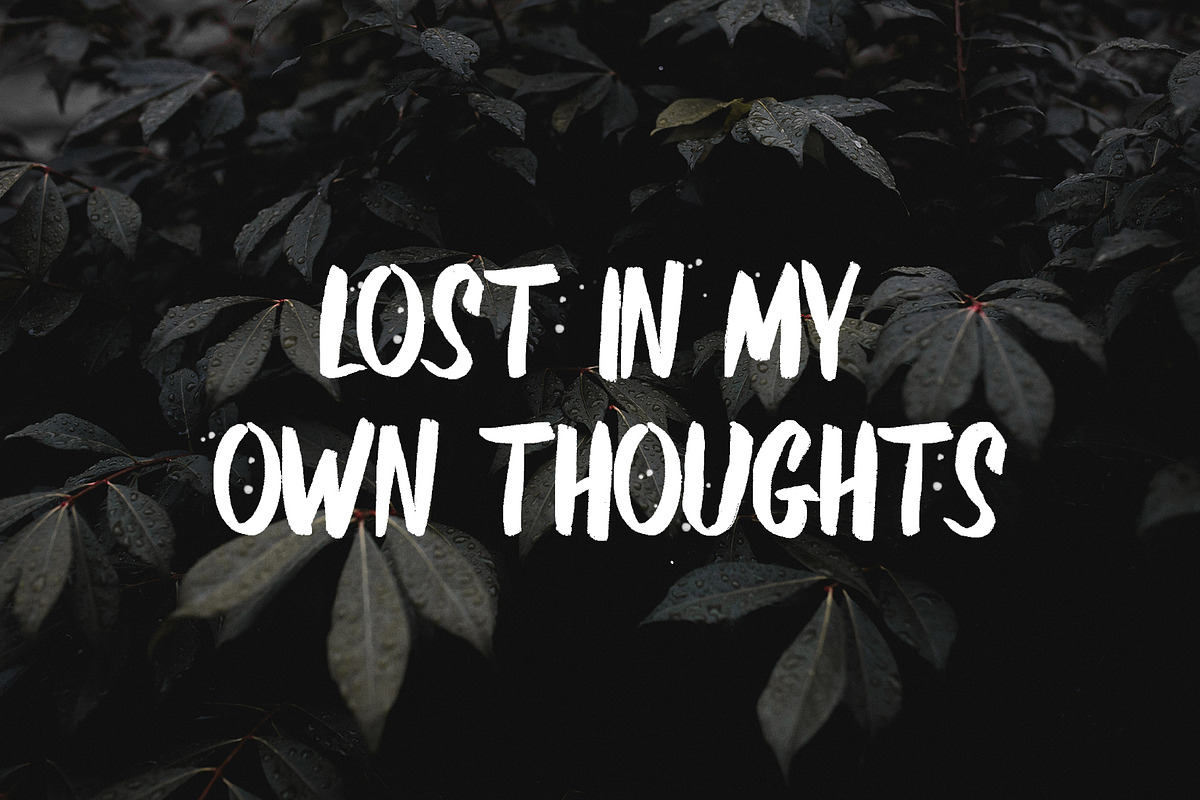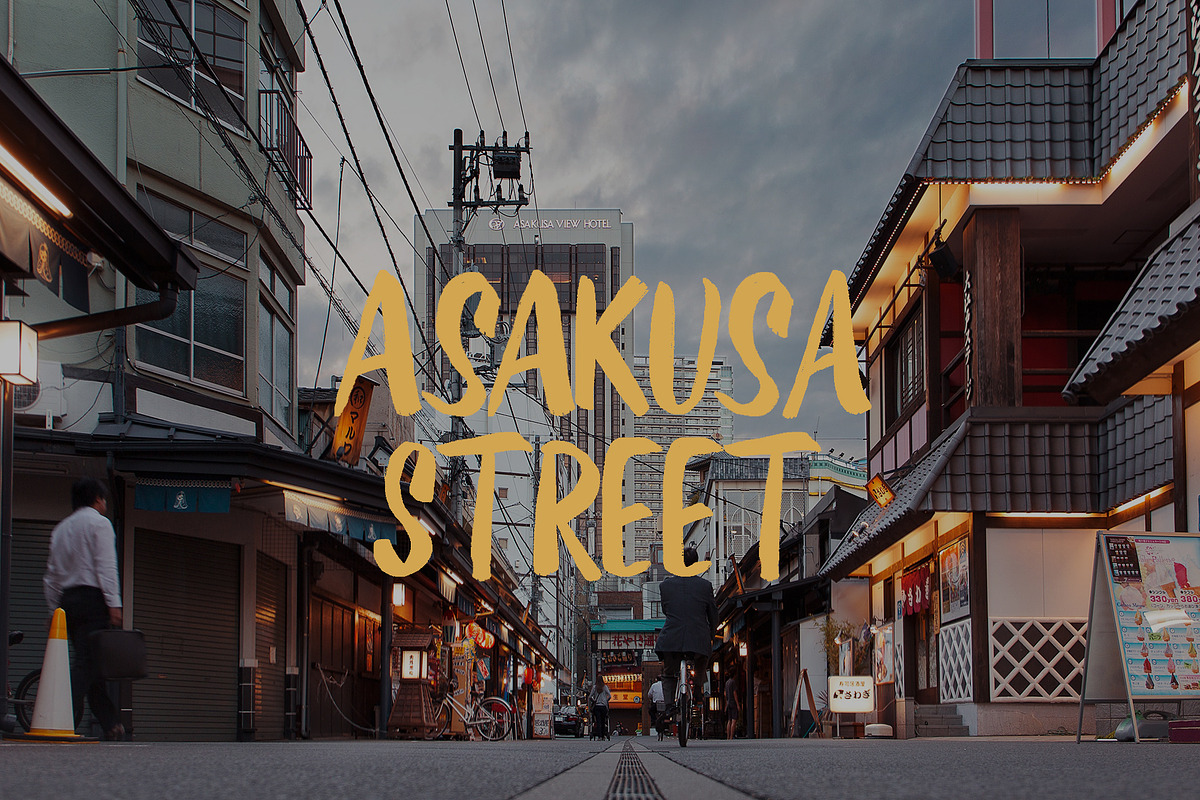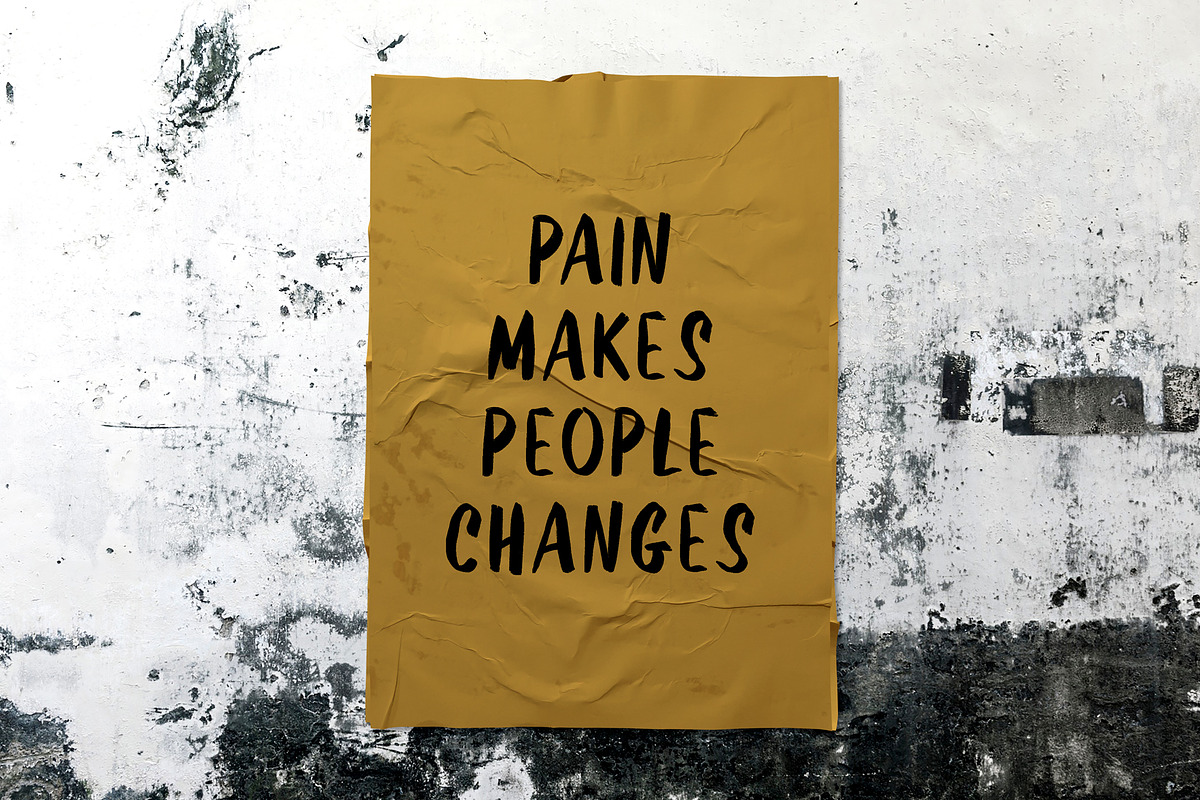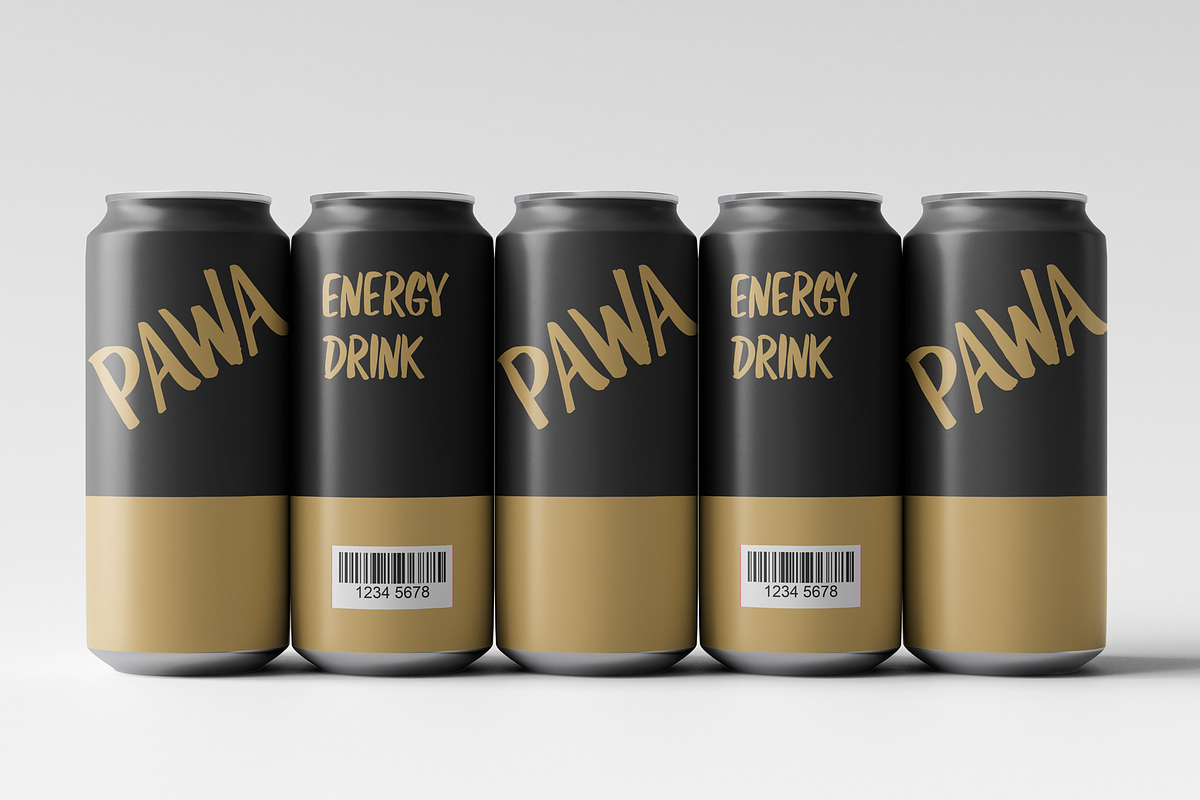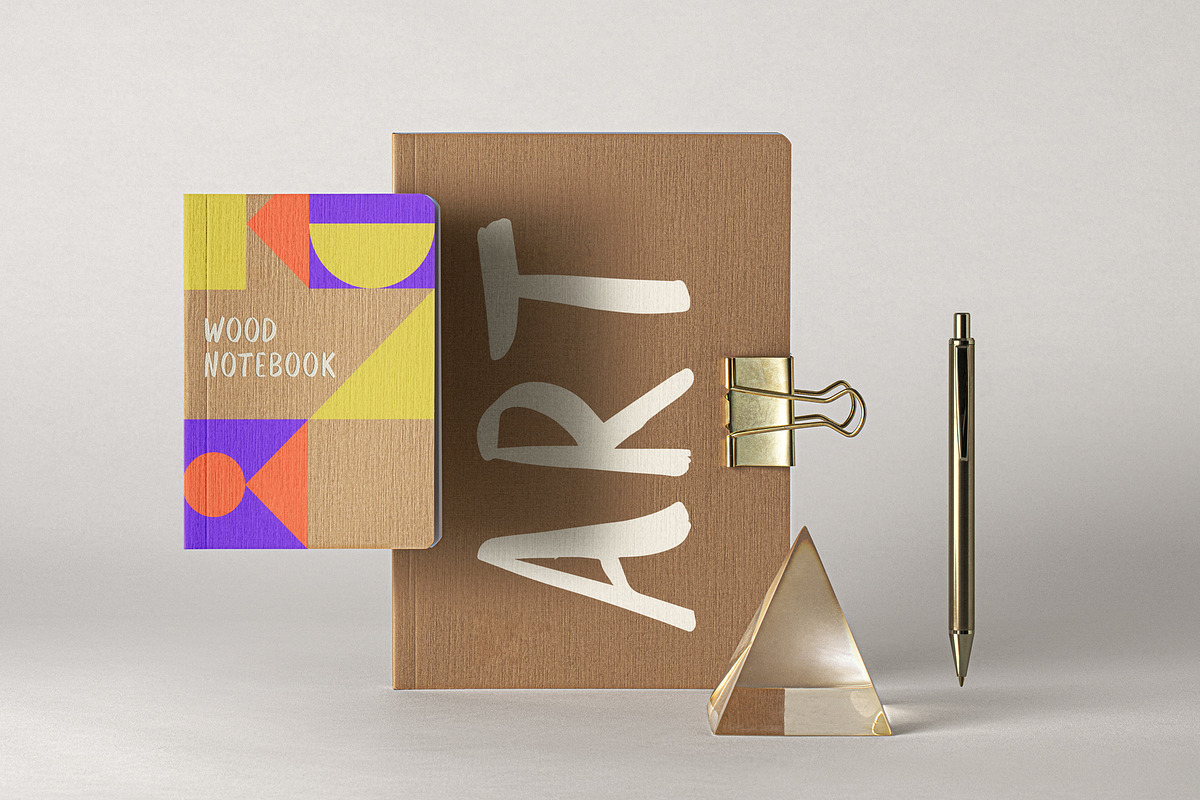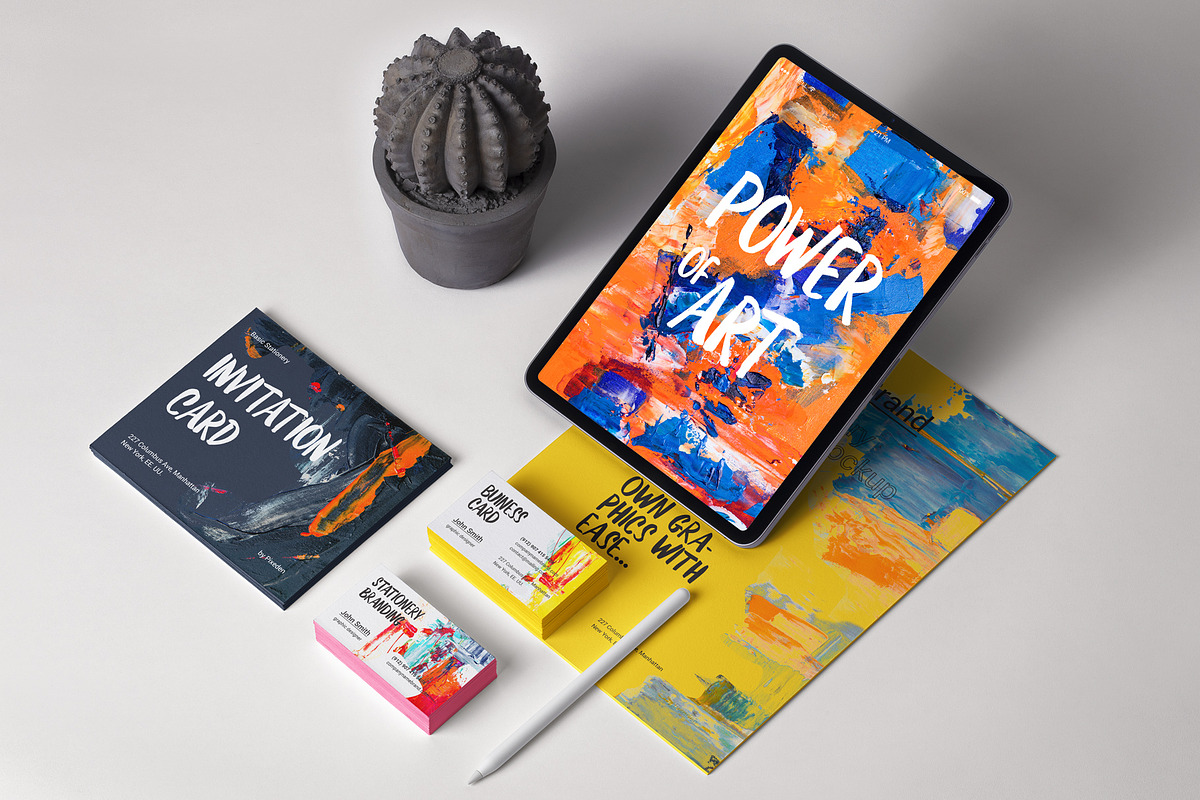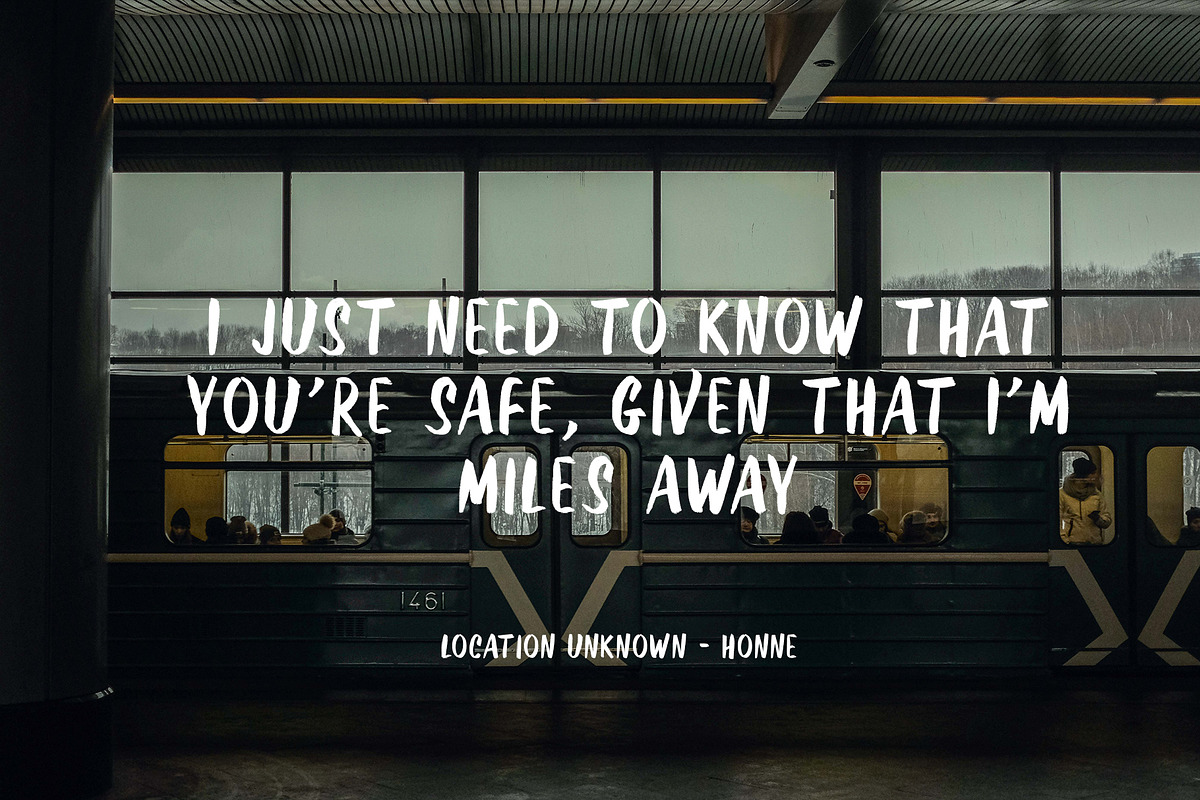
Kurashiki Brush font + SVG
Kurashiki Brush is a unique and elegant handwritten brush, there are two types of fonts in the bundle namely regular and SVG. This font is suitable for graphic design needs such as posters, cards, logos and others.